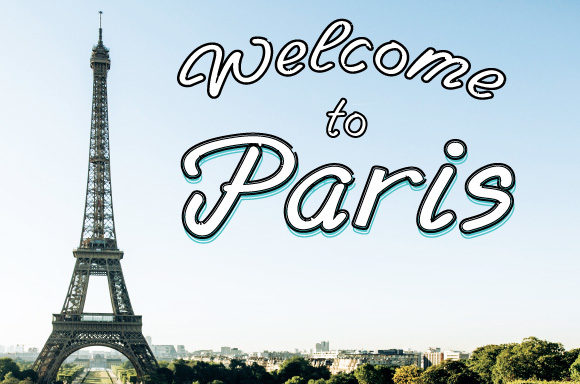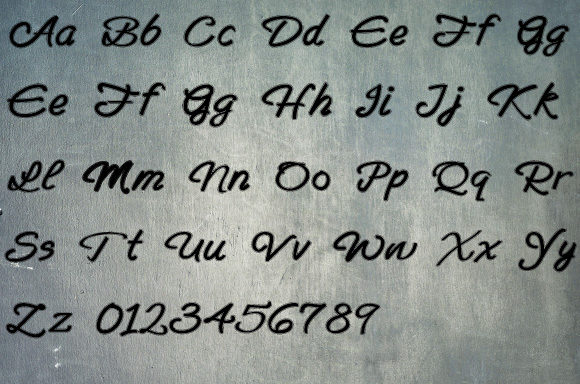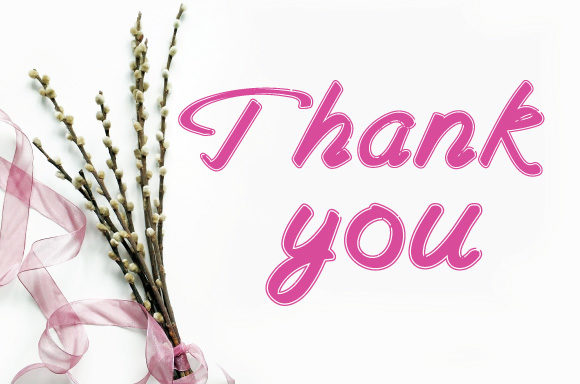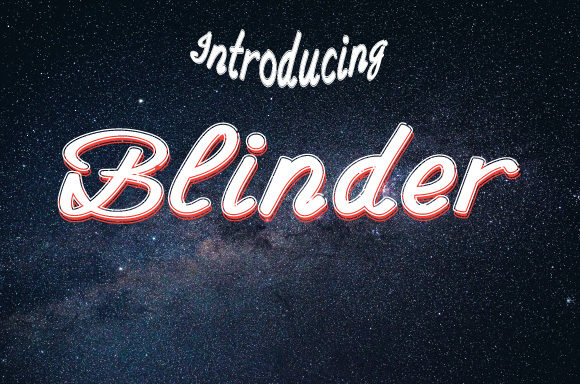
The Blinder Font: A Stylish and Clean Handwritten Delight
I’ll never forget the time I was working on a fashion branding project, and my client asked me to create a logo that exuded elegance and sophistication. I spent hours scouring the internet for the perfect font, but nothing seemed quite right. That was until I stumbled upon the Blinder font. With its smooth curves and stylish handwritten aesthetic, it was love at first sight! In this article, I’ll share my experience with the Blinder font, its features, and how to make the most of it in your designs.
• ✨ Smooth curves and elegant lines that scream sophistication
• ✅ Perfect for fashion branding, editorial designs, and high-end projects
• 🎉 Highly legible, even at small font sizes
• 💡 Great for creating beautiful headings, titles, and quotes
While the Blinder font is an excellent choice for many projects, there are a few things to keep in mind:
• 🤔 Limited availability of stylistic alternates, which may limit its versatility
• ⚠️ May not be the best choice for body text or long-form content due to its elegant, yet delicate nature
The Story Behind Blinder Font
The Blinder font was created by a talented type designer who wanted to craft a font that embodied elegance and sophistication. Inspired by classic handwritten scripts, the designer carefully crafted each letterform to ensure a smooth and flowing aesthetic. The result is a font that’s both stylish and highly legible.
Font Name Blinder Font
Author Dedi Art Studio
Q: What is the Blinder font best suited for?
A: The Blinder font is perfect for fashion branding, editorial designs, and high-end projects where elegance and sophistication are key.
Q: Is the Blinder font available in different weights or styles?
A: The Blinder font is available in a single weight, but its elegant design makes it versatile enough for various design applications.
Q: Can I use the Blinder font for body text or long-form content?
A: While the Blinder font is highly legible, its elegant and delicate nature makes it better suited for headings, titles, and short-form content.